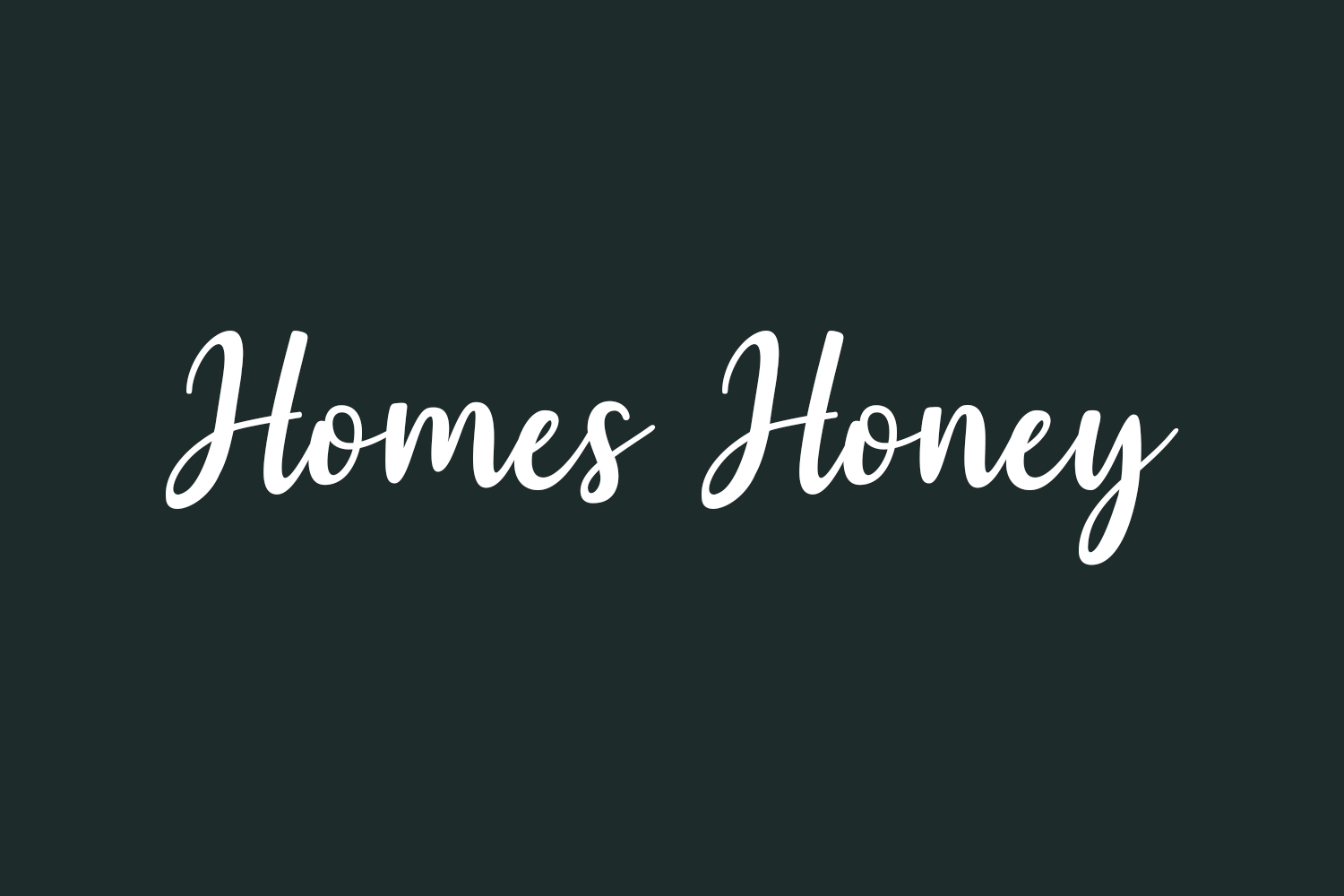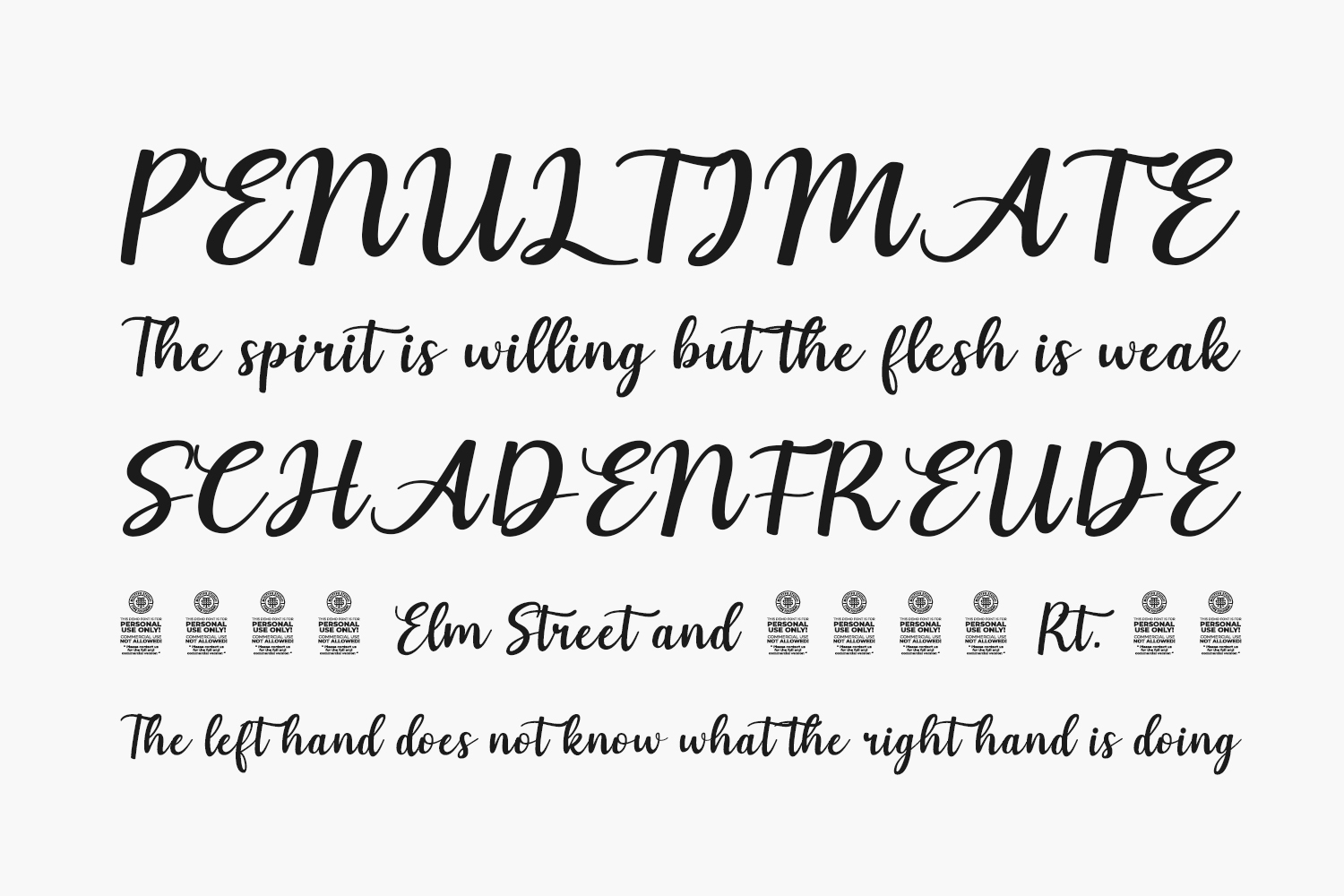
Introducing Homes Honey Free Font – a charming calligraphy typeface exuding romance and sweetness, with characters that gracefully dance along the baseline. Infuse a touch of luxury into your design projects with this elegant font. Perfect for adding a sophisticated flair to any creative endeavor. Download the font for free if you need it for personal use or purchase the full version for commercial use.